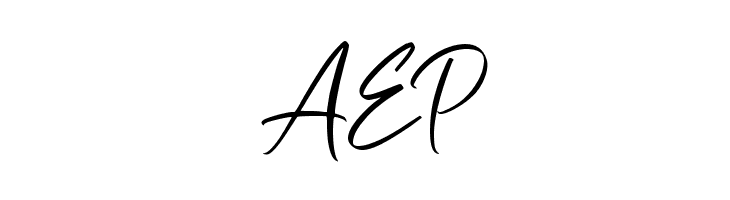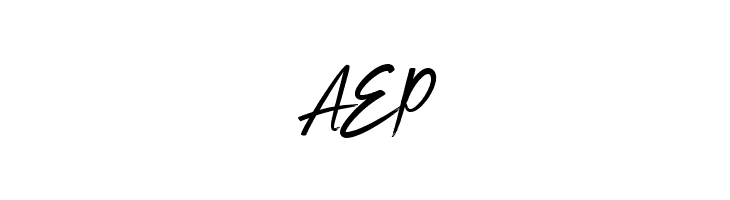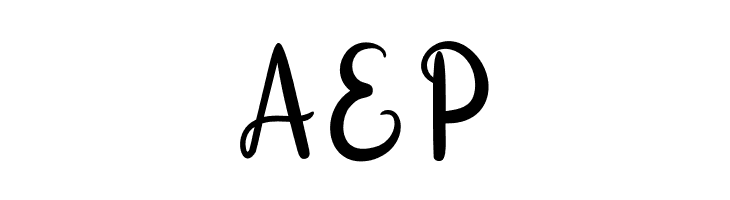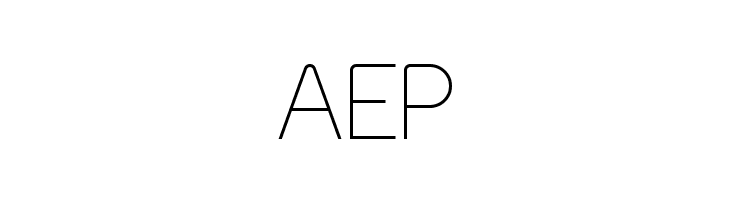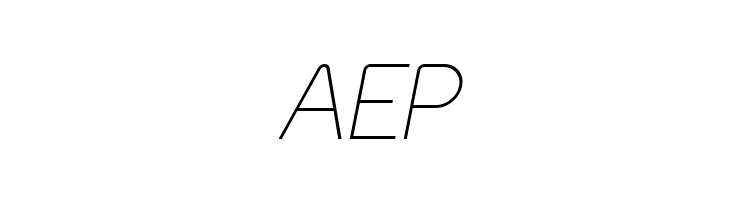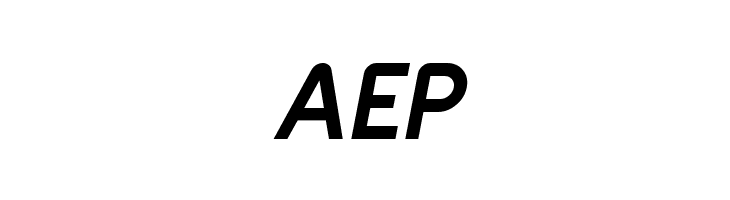
A fluid, elegant script font with a natural handwriting style.
A cursive, handwritten-style font with elegant, flowing characters.
A playful, bold font with rounded, thick characters and a whimsical style.
A playful, hand-drawn style font with rounded, flowing letterforms.
A modern, rounded font with consistent line thickness and playful style.